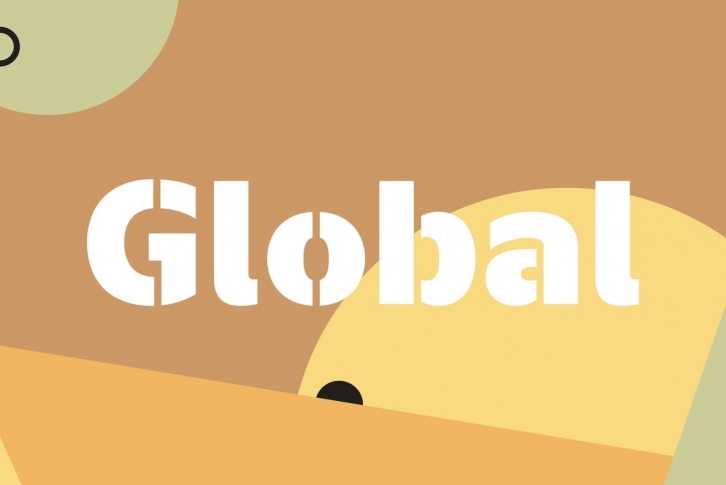
The seek for neutrality in typography lead us to design Global, a no-nonsense type family that can be used under any circumstance, both in print, web and apps. Global is a hard-working sans typeface that eliminates the licensing boundaries between the screen and the paper, therefore it can be used and embedded both for the web and mobile applications. Get the medium weights for Free.
Designed by Dino dos Santos and Pedro Leal, 2012